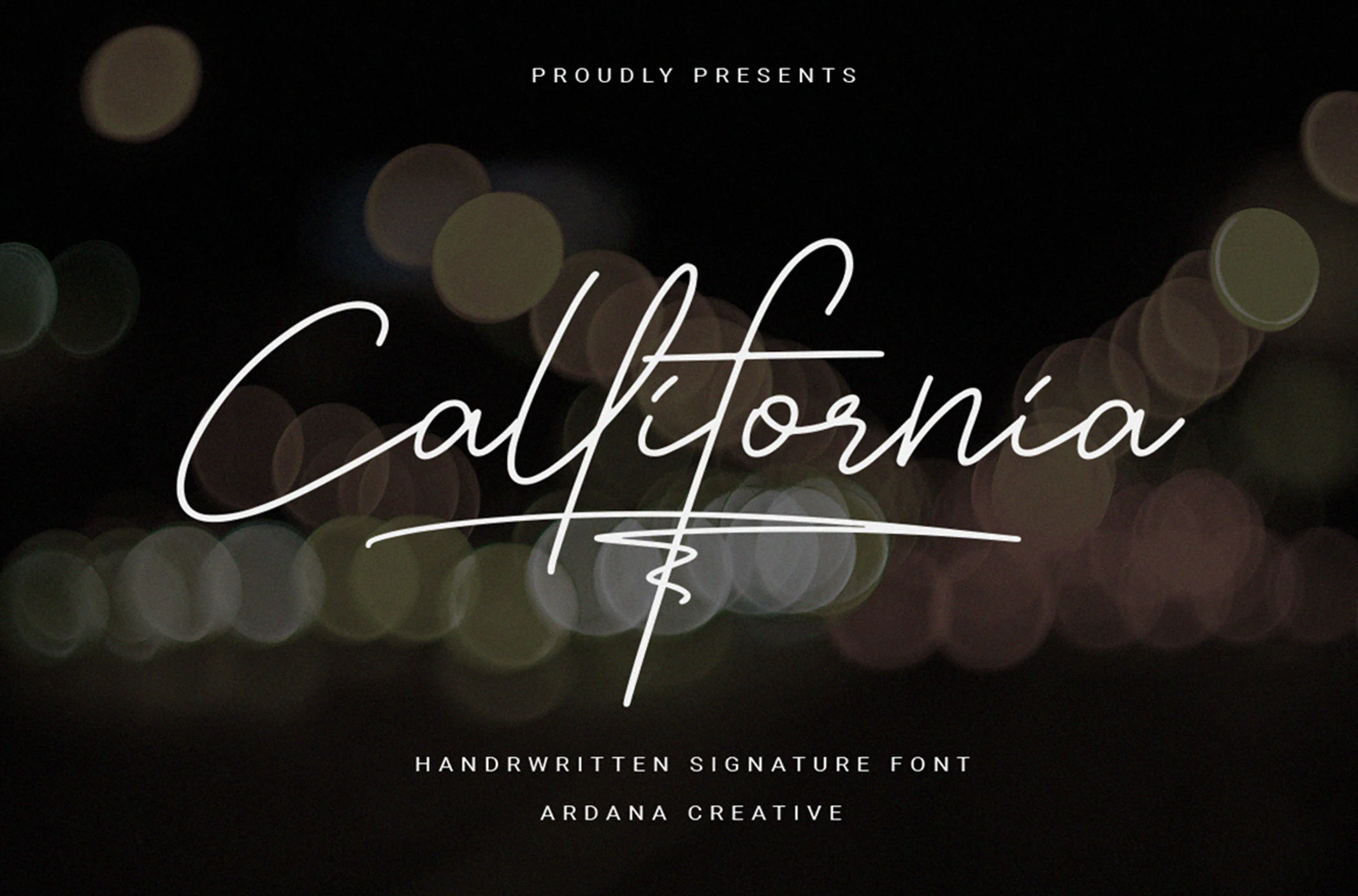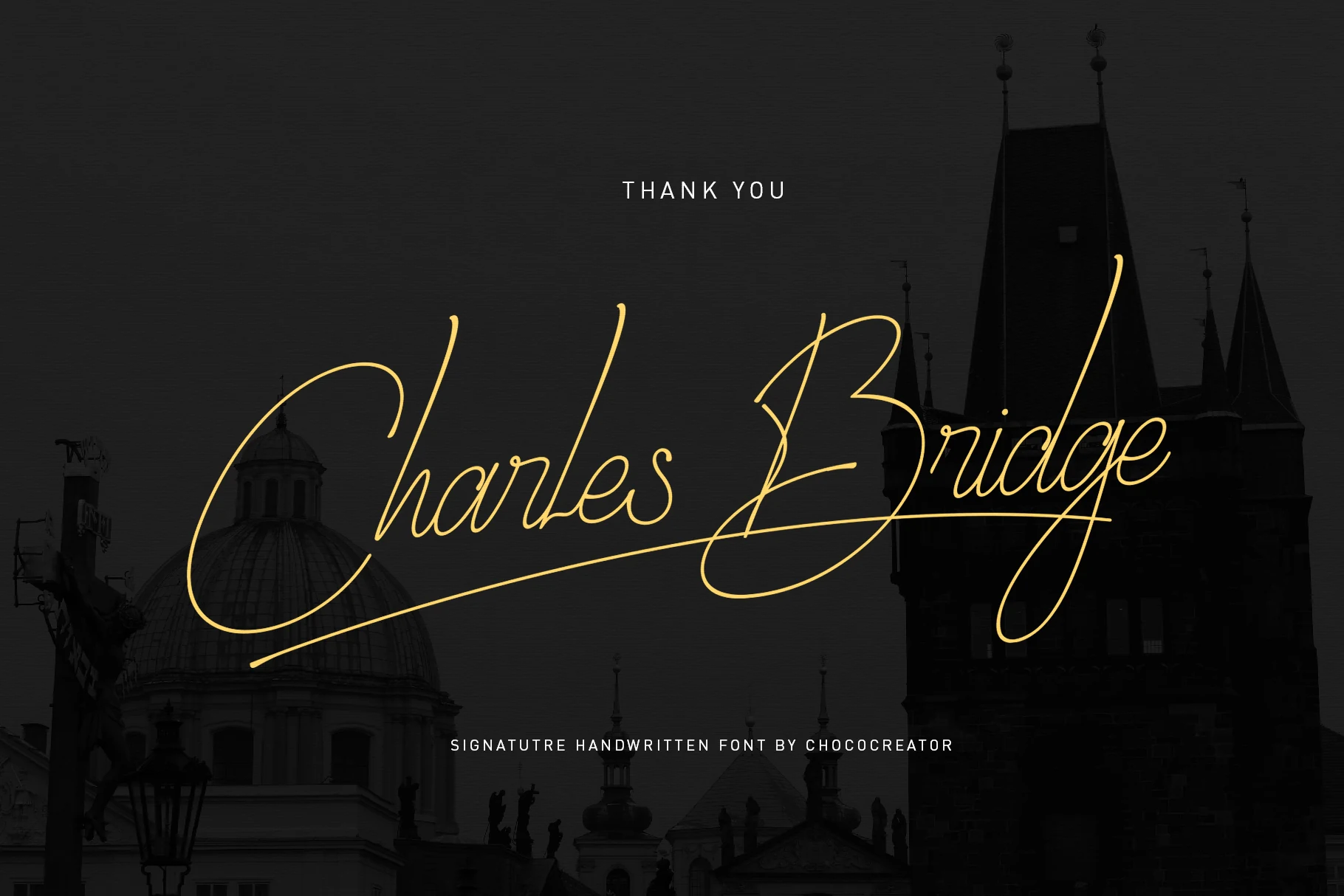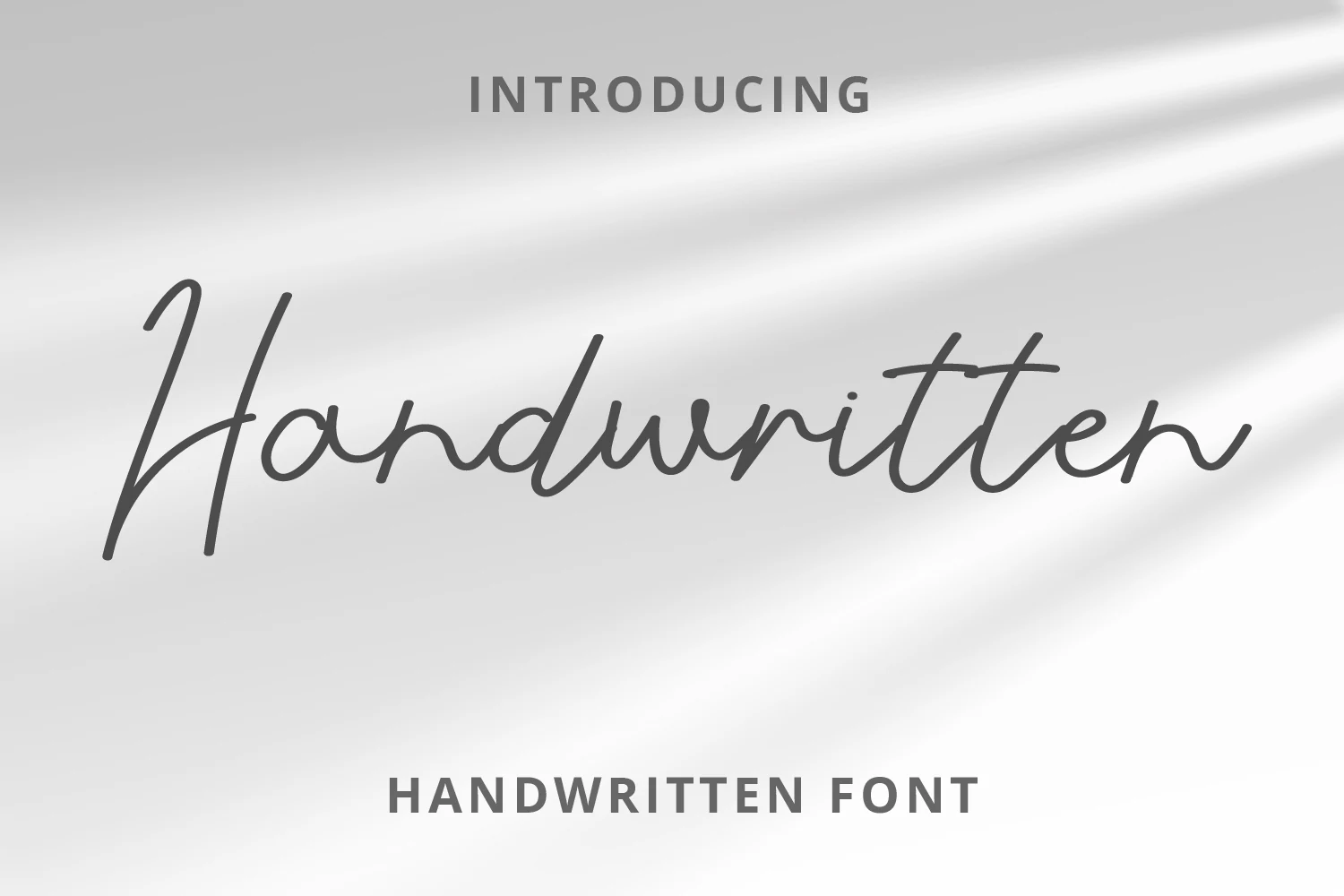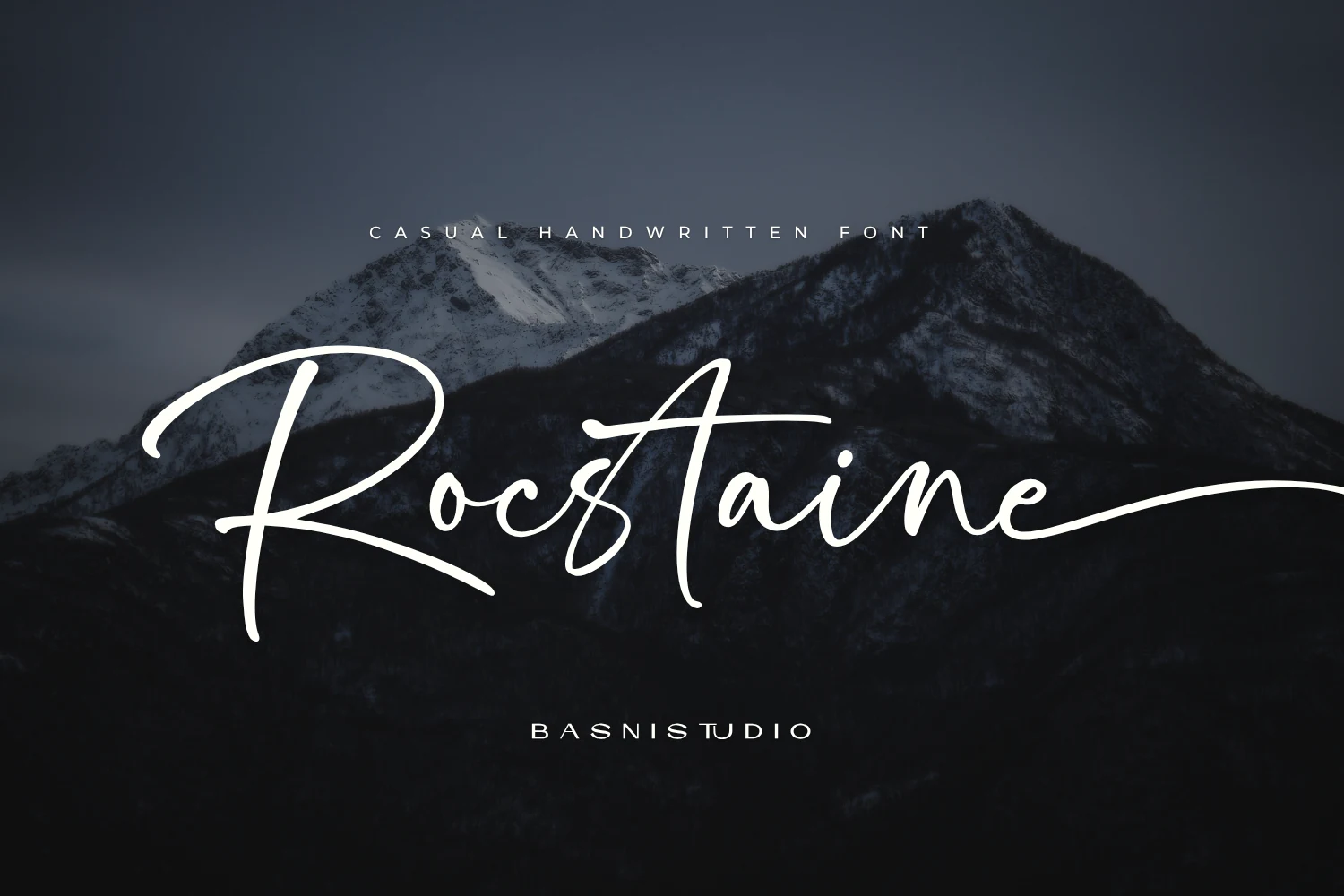
Cool Handwritten Fonts range from restrained monoline signatures to textured brushes and high-contrast calligraphy. Together, they cover logo marks, invitations, packaging, signage, headlines, and short phrases, with construction and scale determining whether a style feels readable or purely decorative.
Cool Handwritten Fonts: Flowing Signature Scripts
These Cool Handwritten Fonts rely on connected, usually monoline letters, rightward slants, and signature-like swashes. They feel lighter and more controlled than the heavier brush scripts or contrast-rich calligraphy.
Mueband Font
Mueband Font features connected cursive lettering with a pronounced rightward slant and sweeping terminal swashes.
Mueband Font uses fluid connected cursive, a consistent rightward slant, and sweeping terminal swashes to form a signature-like silhouette. It reads clearly in logos and invitations at display sizes, but complex joins and flourishes lose clarity when reduced.
Monoline Font
Monoline Font with connected cursive letterforms, consistent monoline strokes, and a slight forward slant.
Monoline Font keeps its connected cursive construction visually even from letter to letter, with a slight forward slant and a long exit stroke. That consistent line supports large signature headings and branding, though the extended finish is awkward in dense text.
Callifornia Font
Callifornia Font features connected cursive letterforms, a pronounced rightward slant, and extended decorative swashes.
Callifornia Font suits short phrases and branding that need a distinctly personalized finish. Its monoline connected letters lean strongly right, while extended lowercase swashes add options through PUA encoding and extra glyphs. Give those details generous display size so intricate connections do not compromise readability.
Brittany Signature Script Font
Brittany Signature Script Font with flowing monoline strokes, a right-leaning handwritten style, and extended flourishes.
Brittany Signature Script Font creates Cool Handwritten Fonts’ flowing signature effect through monoline connected letters, a rightward slant, and extended inky flourishes. Its low contrast keeps the silhouette cohesive for branding, though the joins still need generous display size.
Charles Bridge Signature Handwritten Font
Charles Bridge Signature Handwritten Font features connected cursive letterforms, a pronounced rightward slant, and extended terminal swashes.
Charles Bridge Signature Handwritten Font balances long terminal swashes with a stable baseline and even monoline stroke. That control helps in wedding and branding work, although its connected calligraphy remains moderately readable and is best reserved for large display text.
Shavira Handwritten Font
Shavira Handwritten Font is a bold, slanted script with connected letters, rounded terminals, and fluid curves.
For personal-brand logos and photography watermarks, Shavira Handwritten Font offers bold monoline connections, rounded terminals, and a strongly slanted axis. The fuller stroke gives signatures more presence, but interconnected letters need headline scale to avoid losing clarity.
Rocstaine Handwritten Font
Rocstaine Handwritten Font in a connected, forward-leaning script with monolinear strokes and sweeping swashes.
Rocstaine Handwritten Font stands apart through wide proportions, broad spacing, low-profile lowercase paths, and towering ascenders. Its extended entrance and exit swashes create an unusual horizontal rhythm for logos and short phrases, but the broad footprint can overwhelm compact layouts.
Handwritten Font
Handwritten Font shown in a connected monoline script with a slight forward slant and rounded terminals.
Handwritten Font uses thin monoline strokes, rounded terminals, and connected cursive that shifts along a bouncy baseline. That hand-shifted construction suits quotes and personal branding, while the baseline variation can undermine alignment in formal layouts.
Brush and Bold Display Scripts
This group emphasizes visual impact through thick strokes, dry-brush texture, shadows, and prominent terminals. Compared with flowing signature scripts, these faces occupy more visual weight and suit shorter, louder display settings.
Alison Phillips Casual Handwritten Font
Alison Phillips Casual Handwritten Font is a casual brush-style script with rough texture, varied stroke thickness, and a pronounced rightward slant.
Alison Phillips Casual Handwritten Font uses a dry-brush texture, variable stroke thickness, and disconnected, right-slanting characters. The separated forms keep words open and visibly handmade, but uneven brush weight makes it a display treatment rather than a choice for long copy.
How to Choose the Right Font
Choose among Cool Handwritten Fonts by matching construction to scale: monoline scripts offer the most even silhouettes, brush styles add texture or weight, and high-contrast calligraphy supplies the strongest flourishes. Check joins, swashes, baseline behavior, and available width at the actual size; reserve intricate faces for short display text rather than paragraphs.